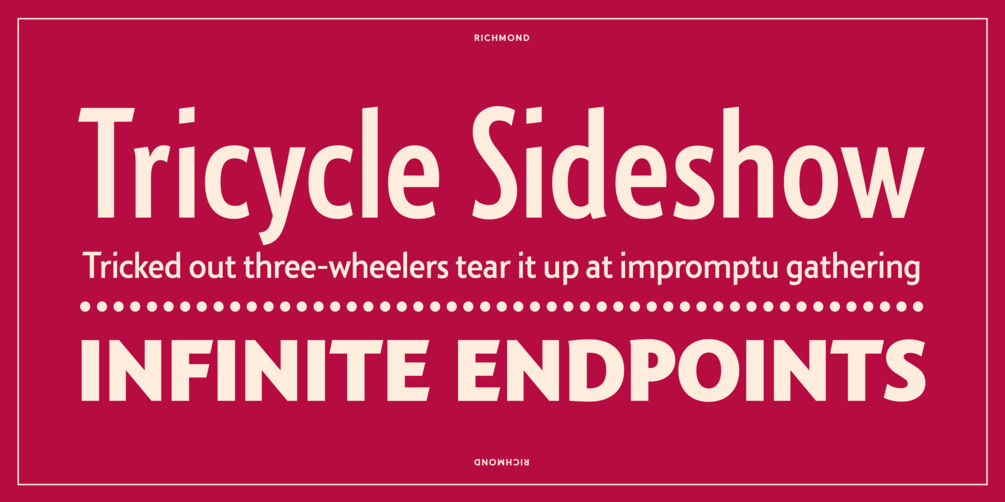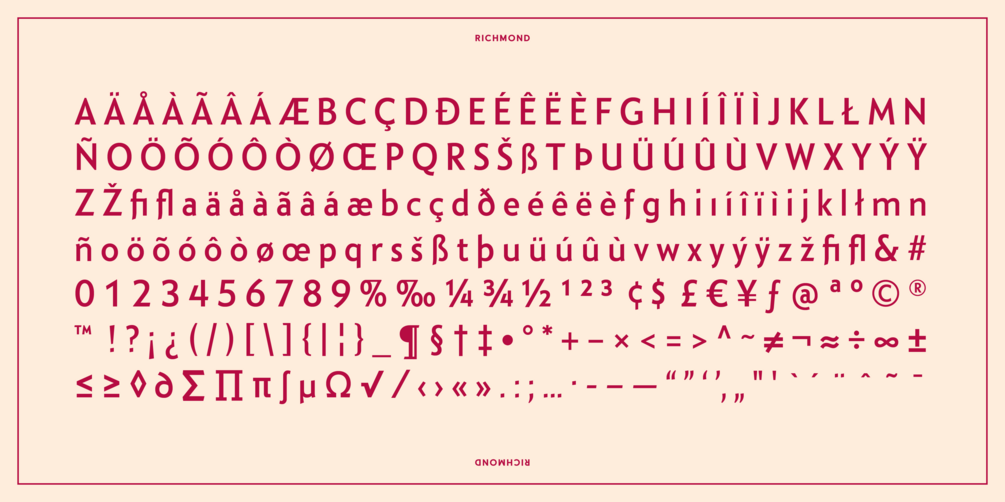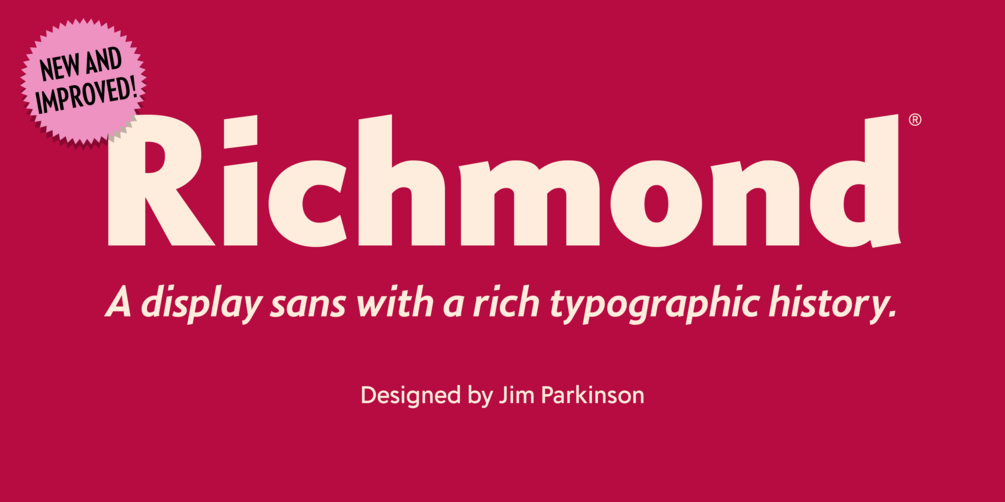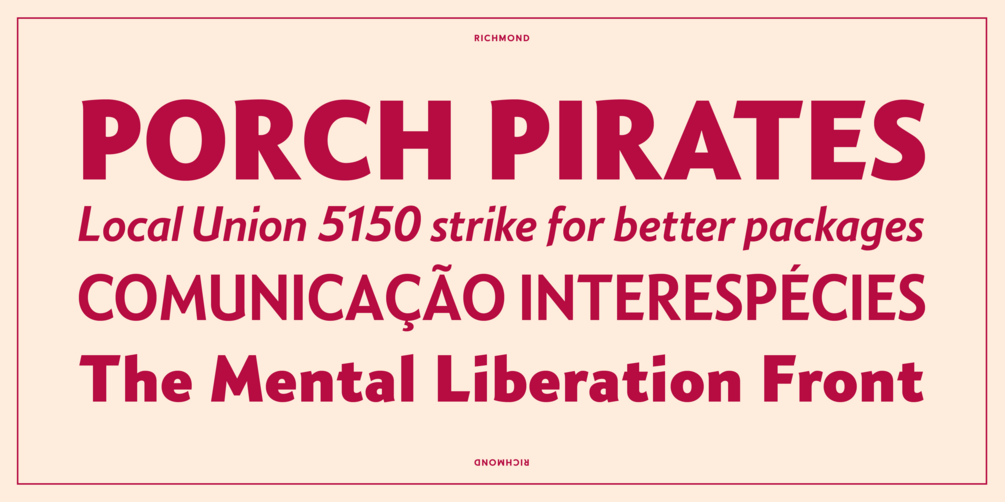
The sans-serif display face Richmond by Jim Parkinson is a stylistic progression from his earlier design for his namesake typeface “Parkinson” — a bespoke type commissioned by Roger Black for Rolling Stone® Magazine in the mid 1970’s. Jim described his Parkinson typeface as being influenced by the works of San Francisco psychedelic poster artist Rick Griffin and the early French type designer Nicholas Jenson.